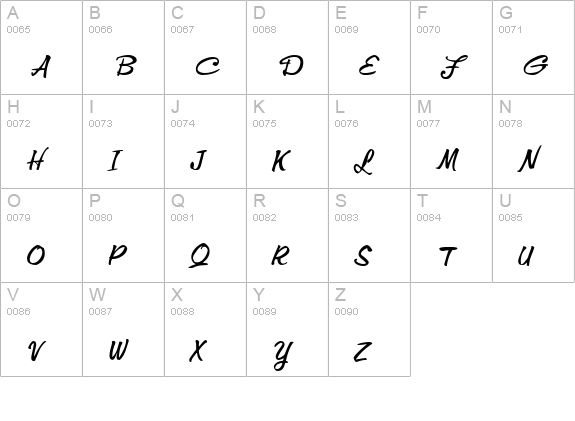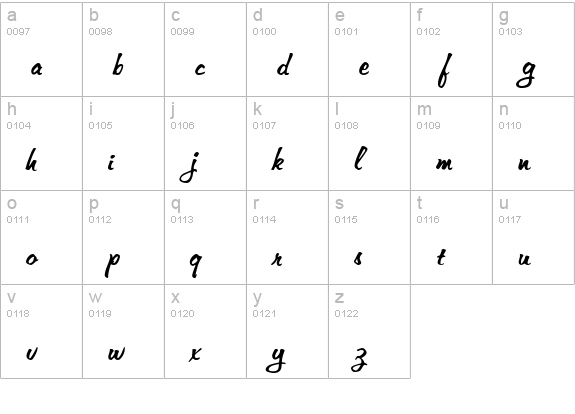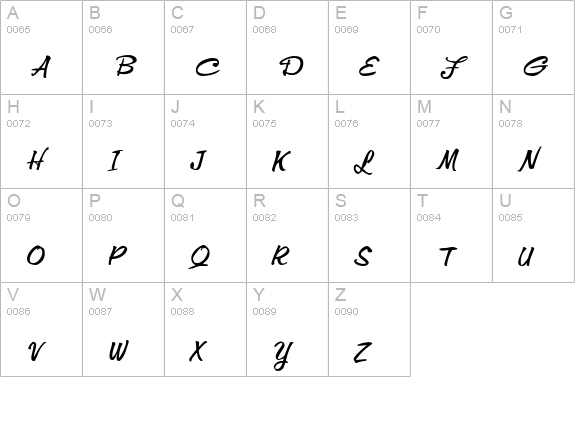
MemoExtended Italic Font Details
MemoExtended Italic is a distinctive, italic variant in the MemoExtended typeface family \xE2\x80\x94 well suited to design and typography projects.
MemoExtended Italic is a sleek and stylish font that exudes elegance and sophistication. Its italicized design adds a touch of flair to any project, making it perfect for branding, editorial design, and more. The slanted letters create a sense of movement and dynamism, while still maintaining readability and clarity. What sets MemoExtended Italic apart is that it is completely free to use. Whether you're a designer looking to add a modern twist to your work or a business owner wanting to make a statement with your marketing materials, this font is the perfect choice. You can easily download MemoExtended Italic for free at FontsMarket.com, ensuring that you have access to high-quality typography without breaking the bank. Elevate your designs with MemoExtended Italic today!